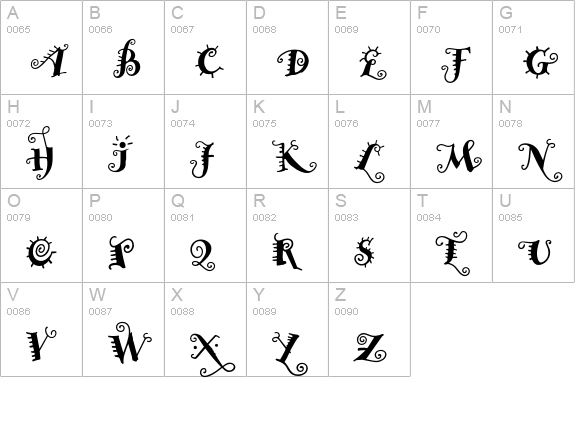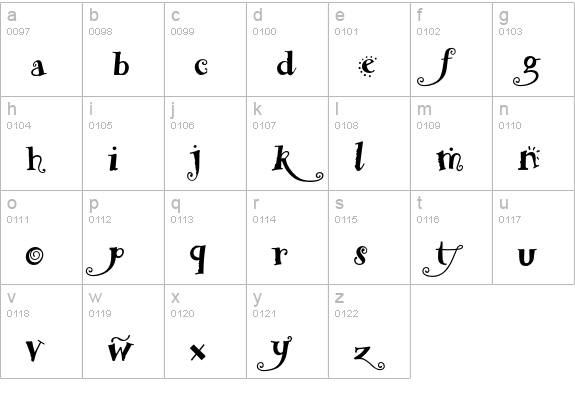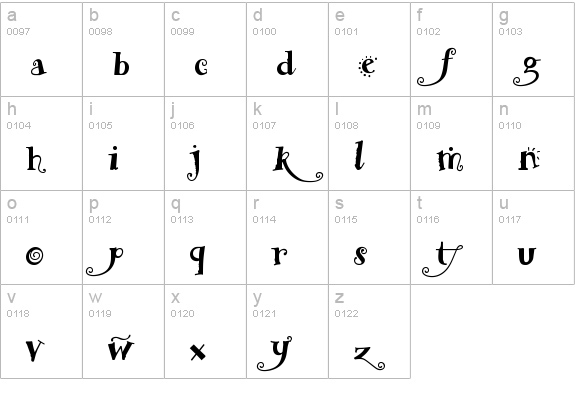
RemedyDoubleExtrasA Font Details
RemedyDoubleExtrasA font is a stunning and versatile typeface that will captivate any reader with its unique charm and elegance. Its intricate and detailed design is sure to make a lasting impression on any project, whether it be for personal or commercial use. This extraordinary font offers a wide range of elements, including double extras that add a touch of sophistication and creativity to your designs. With its clean lines and flawless curves, RemedyDoubleExtrasA font brings a sense of professionalism and refinement to any text. But what truly sets this font apart is the fact that it is freely available to download at FontsMarket.com. Yes, you read that right - this incredible font can be yours at no cost! Now, you can enhance your designs without breaking the bank. Whether you're a professional designer, a student, or simply someone who appreciates beautiful typography, RemedyDoubleExtrasA font is a must-have addition to your font collection. Its versatility allows it to be used in a variety of projects, from logos and branding to invitations and social media graphics. So why wait? Head over to FontsMarket.com today and experience the magic of RemedyDoubleExtrasA font. Download it for free and unlock a world of endless design possibilities.